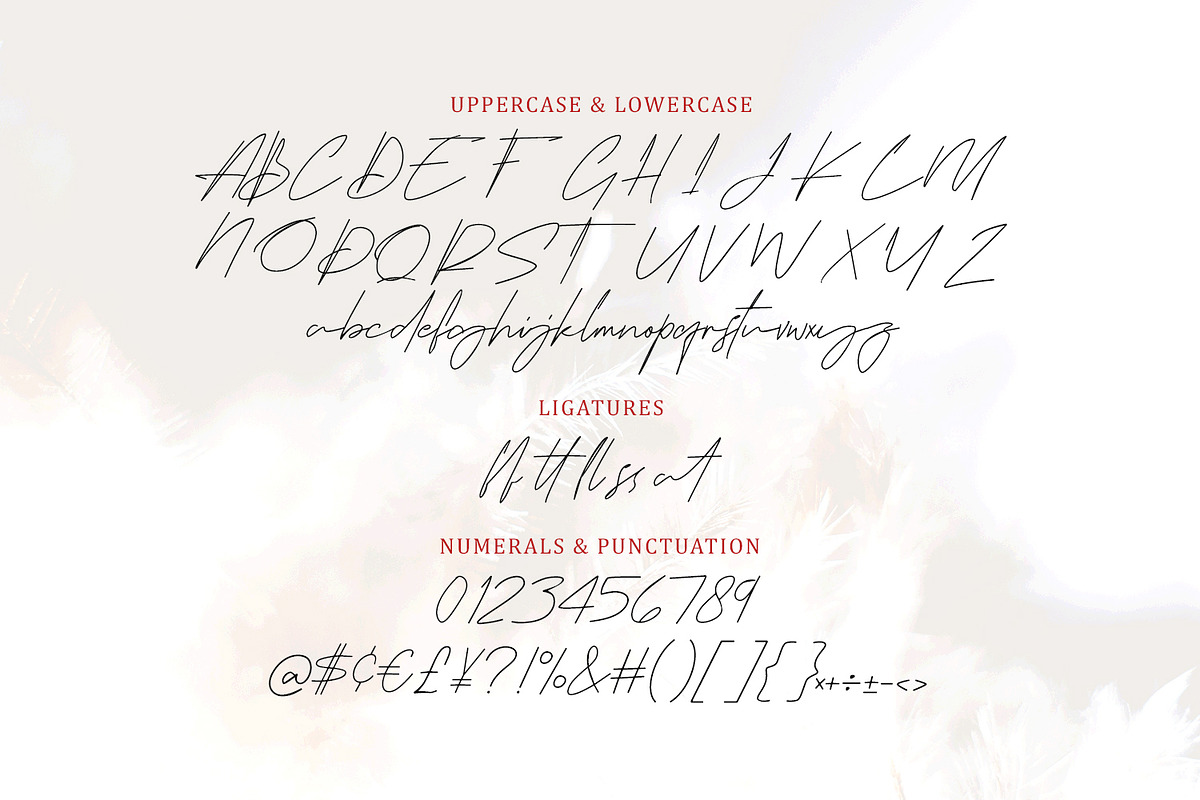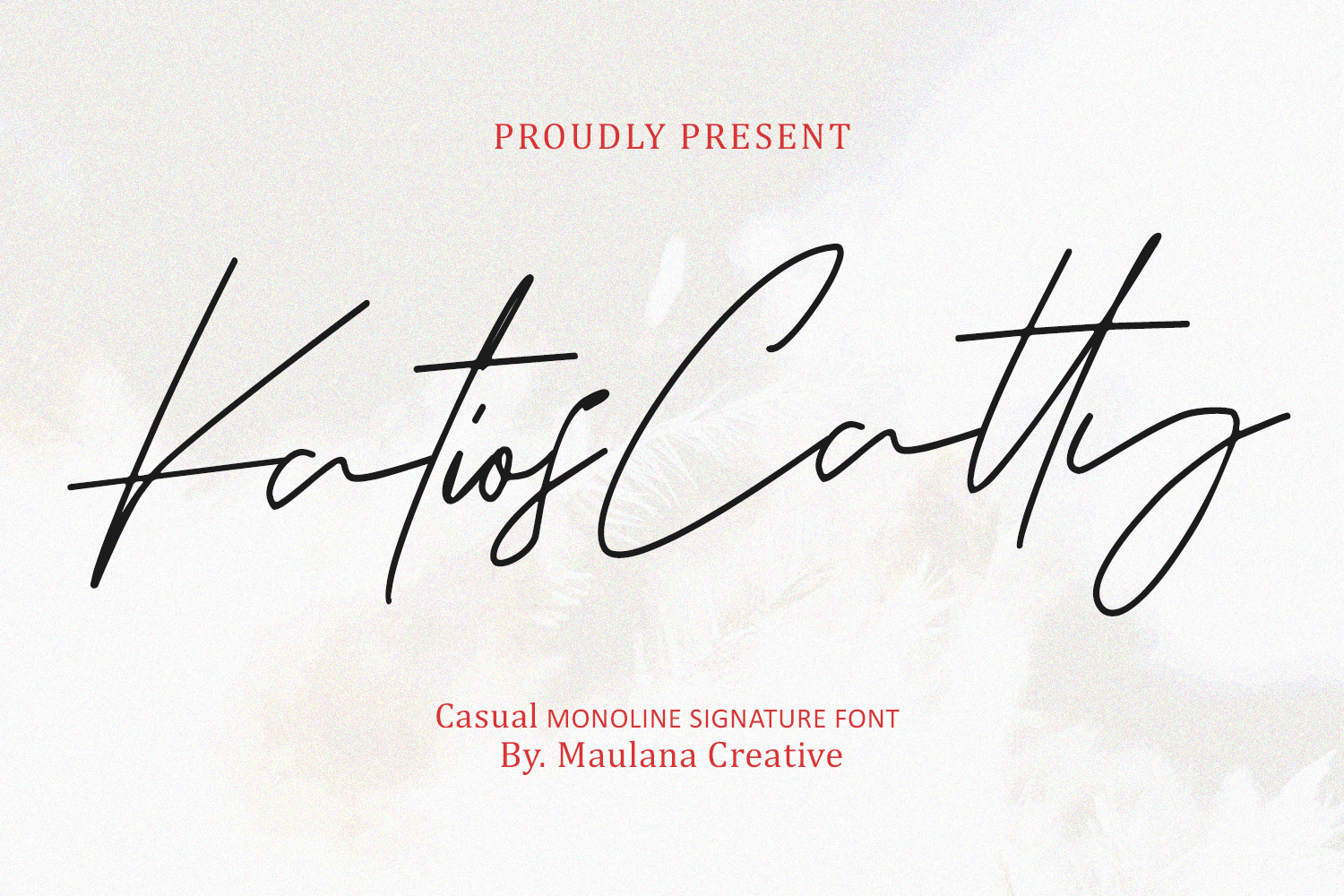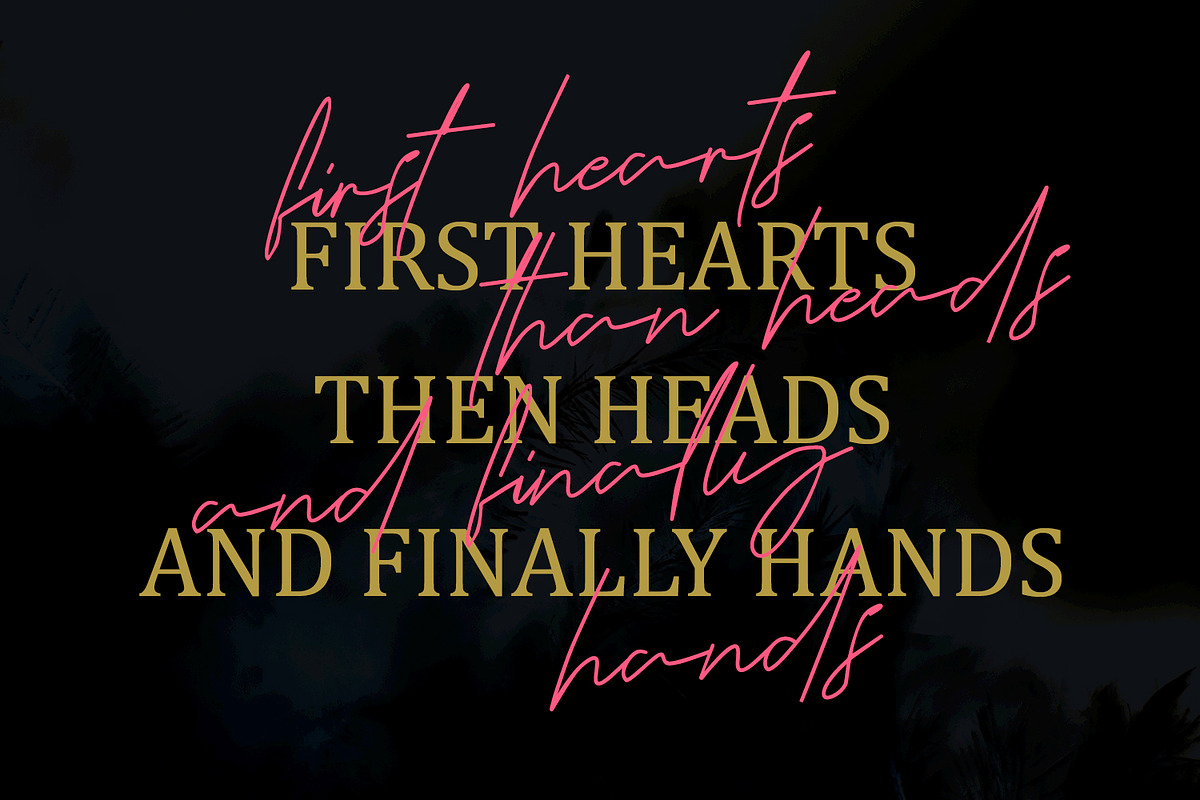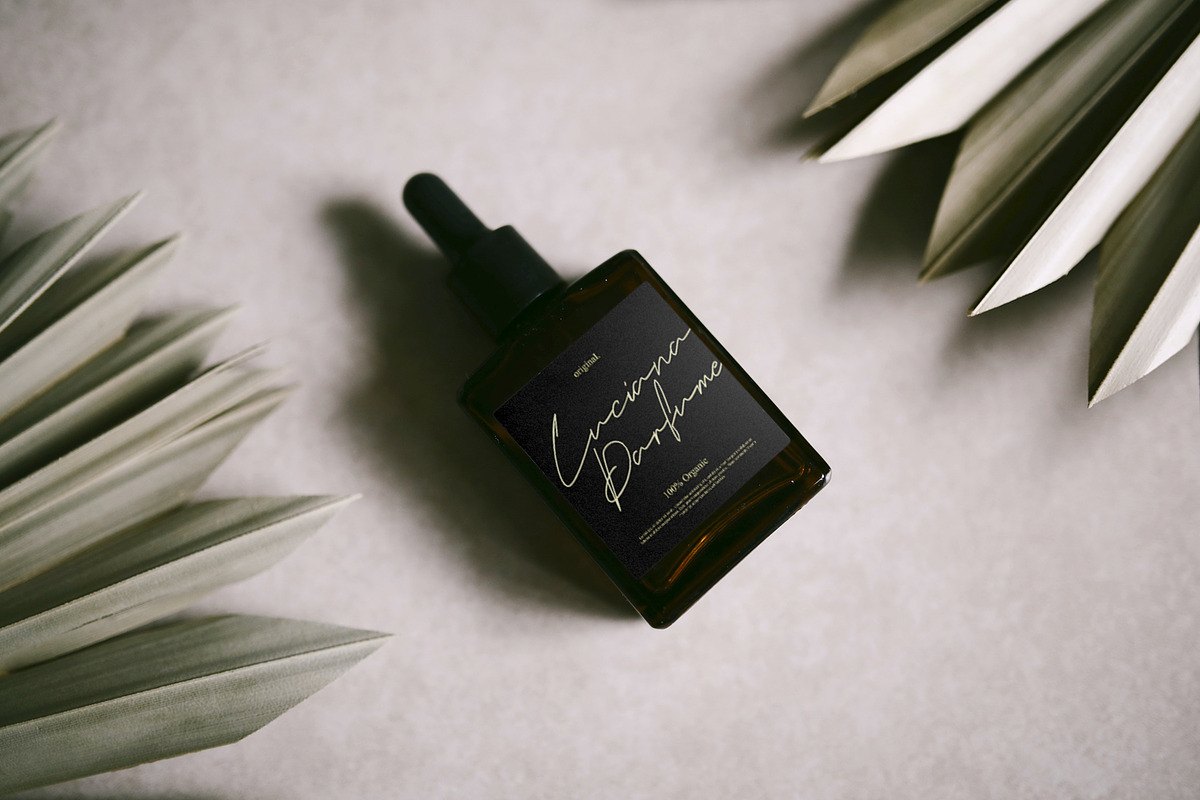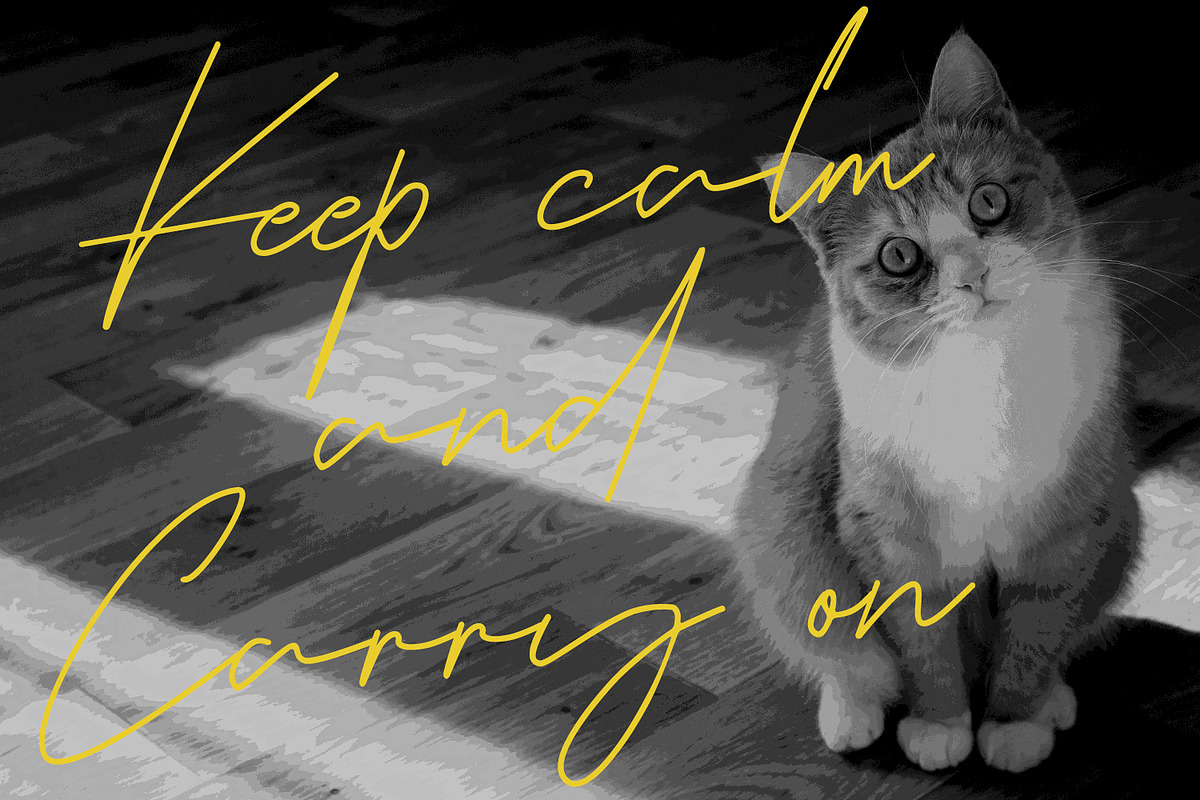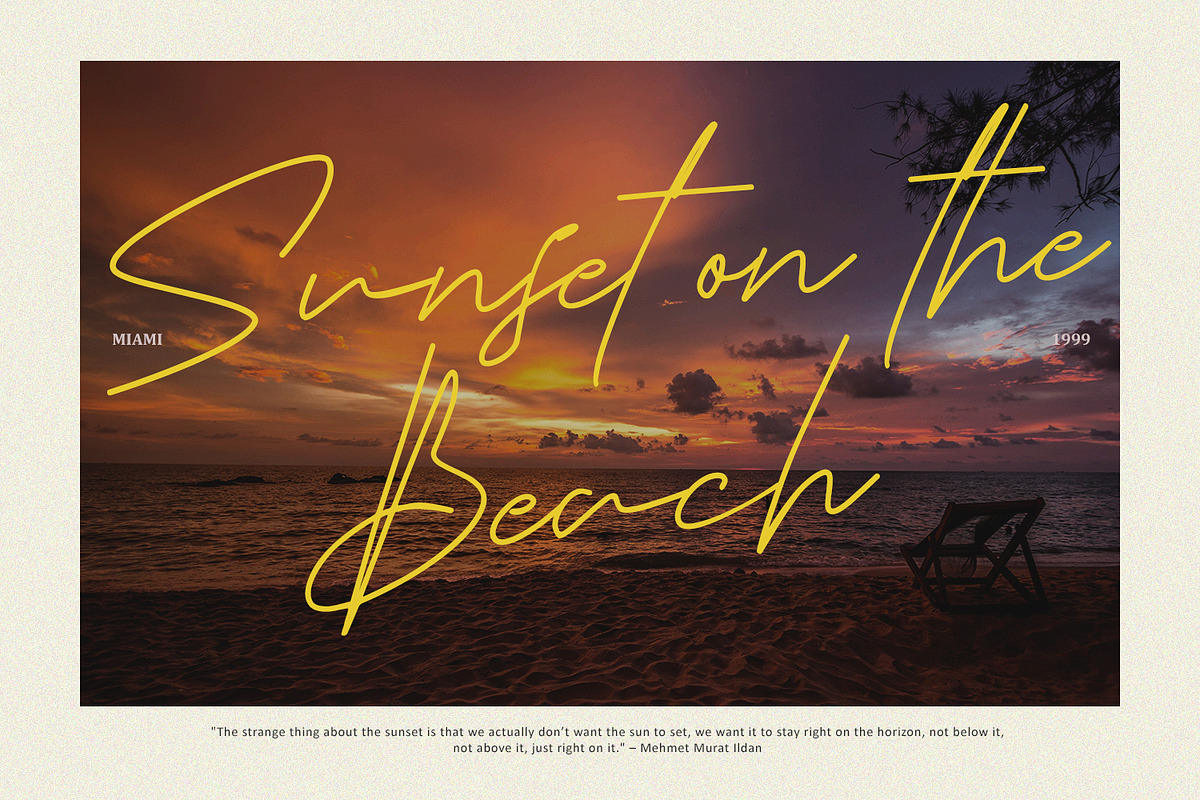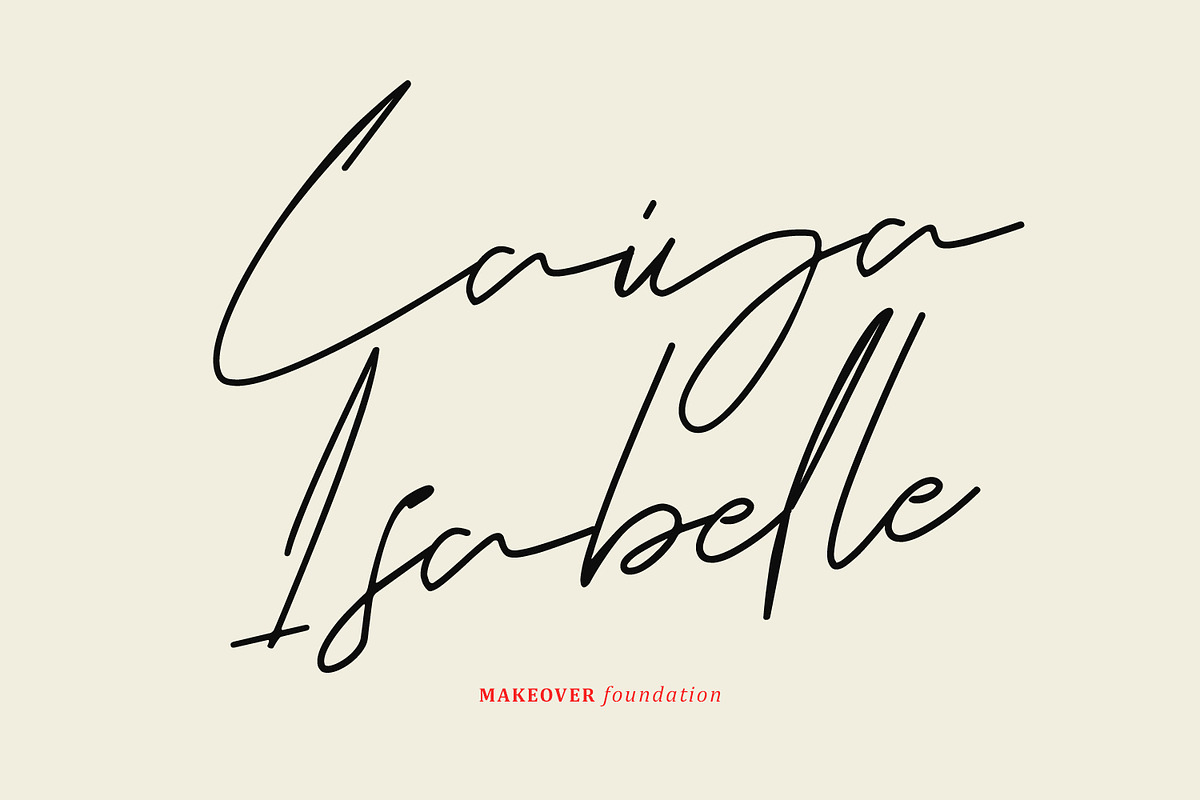
Katios Catty Casual Monoline Font
Give your designs an authentic handcrafted feel. “Katios Catty Casual Monoline Signature Font” is perfectly suited to stationery, logos and much more. Include alternative character and ligature characters.